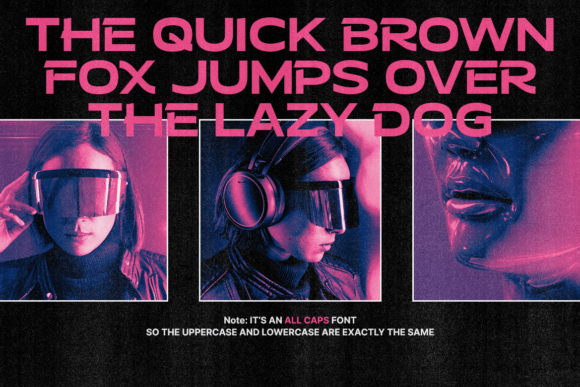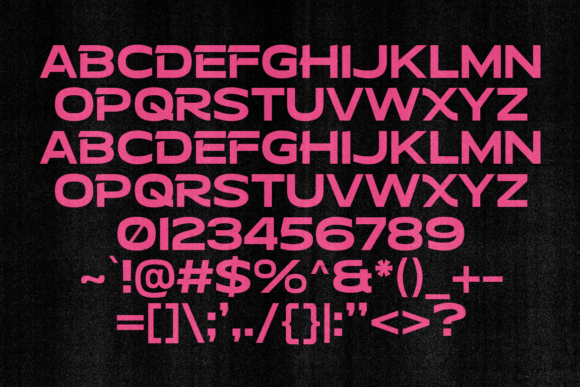
Get Ready to Blast Off into the Future with Begaron Font
Have you ever found yourself brainstorming ideas for a futuristic project, only to be stuck on what font to use? We’ve all been there. You want a font that screams ‘future’ and transports your audience to a world of flying cars and robots. That’s where Begaron Font comes in – a font that embodies the optimism and excitement of the 1950s and 1960s.
Begaron Font is the perfect tool for designers looking to add a touch of futurism to their projects. Whether you’re working on a game, esports logo, streamer overlay, or poster design, this font is sure to make your project stand out. Its unique design aesthetic is inspired by the retro-futurism of yesteryear, and it’s now available for you to download and use in your next project.
- Font Family: Begaron is a modern sans-serif font, ideal for digital and print applications.
- Unique Characteristics: Begaron features a clean and minimalist design, with a unique blend of geometric and organic elements, making it perfect for modern branding and design projects.
Overall, I was quite impressed with the Begaron font. Here are a few things that stood out to me:
- ✨ Unique aesthetic: The Begaron font has a distinctive, elegant look that’s perfect for high-end branding or luxury products.
- ✨ Versatility: Begaron works well in a variety of settings, from print to digital, and can be used for both headings and body text.
- ✨ High-quality glyphs: The font includes a wide range of glyphs, including accented characters and ligatures, making it suitable for international typography.
- ⚠️ Limited font weights: Begaron only comes in a few font weights, which may limit its use in certain design contexts.
- ⚠️ Not ideal for body text: While Begaron can be used for body text, it’s not the most readable font for large blocks of text.
Overall, I think Begaron is a great choice for designers looking for a unique, high-end font. However, it may not be the best fit for every project. With its elegant aesthetic and versatility, it’s definitely worth considering for the right client or project.
1. Use it for titles and headings to add a touch of elegance.
2. Experiment with different font sizes and styles to create visual interest.
3. Pair Begaron Font with other elegant fonts for a sophisticated look.
Begaron Font is ideal for:
2. Luxury brand logos and marketing materials.
3. High-end product packaging and labels.
Begaron Font includes a range of font sizes, from 8pt to 72pt, and various styles, including Regular, Italic, Bold, and Bold Italic. You can also access additional font sizes and styles through the font’s OpenType features, such as ligatures, swashes, and ornaments.